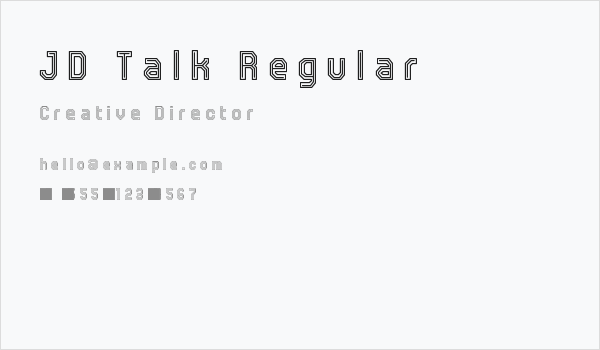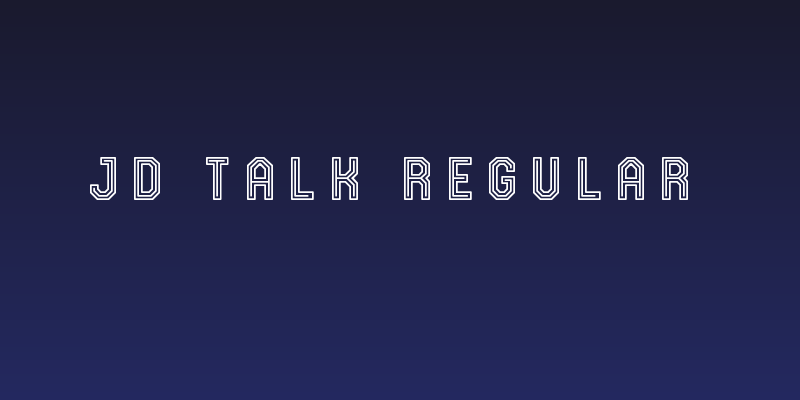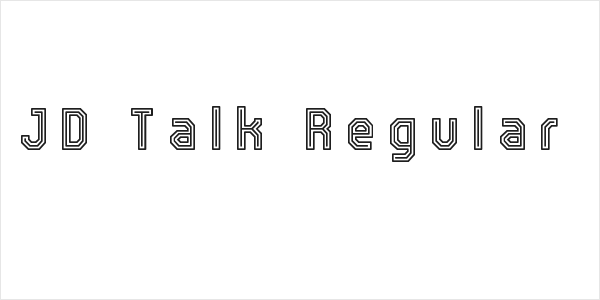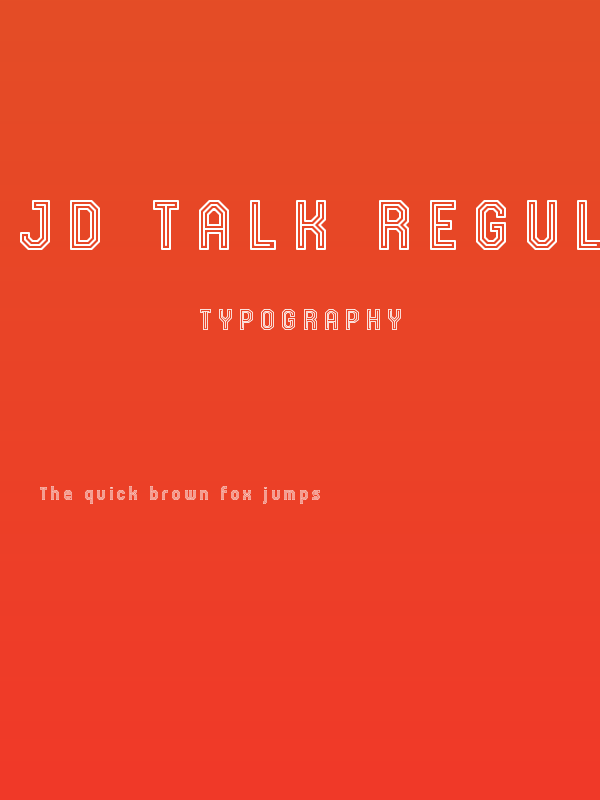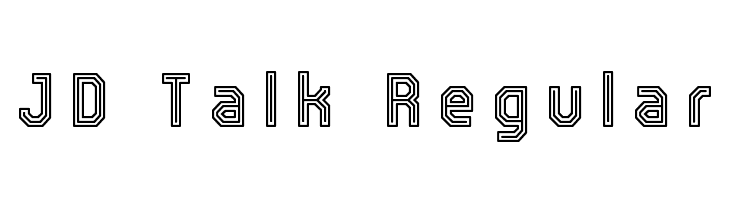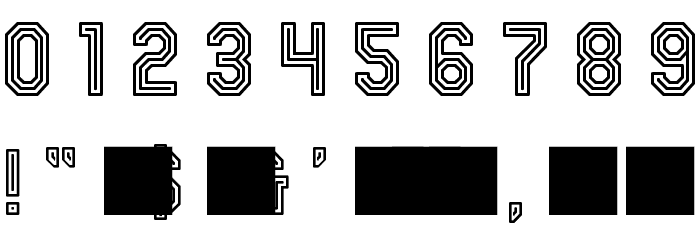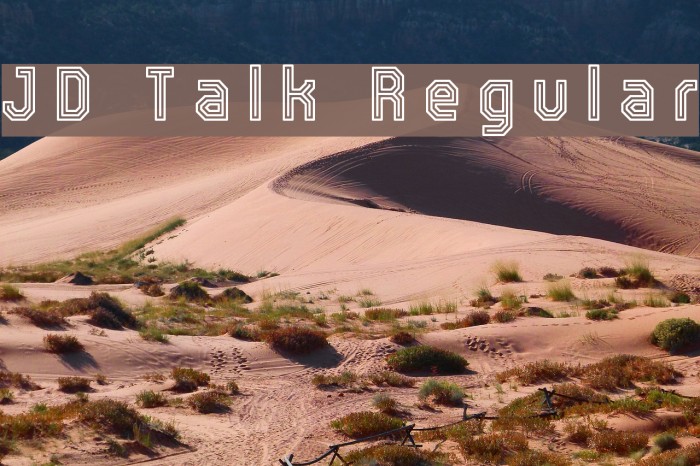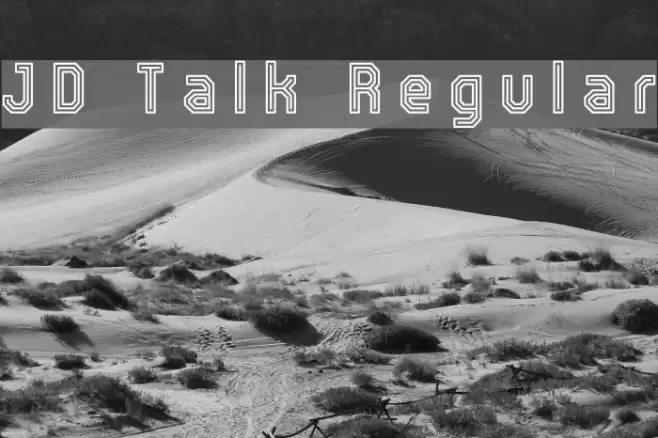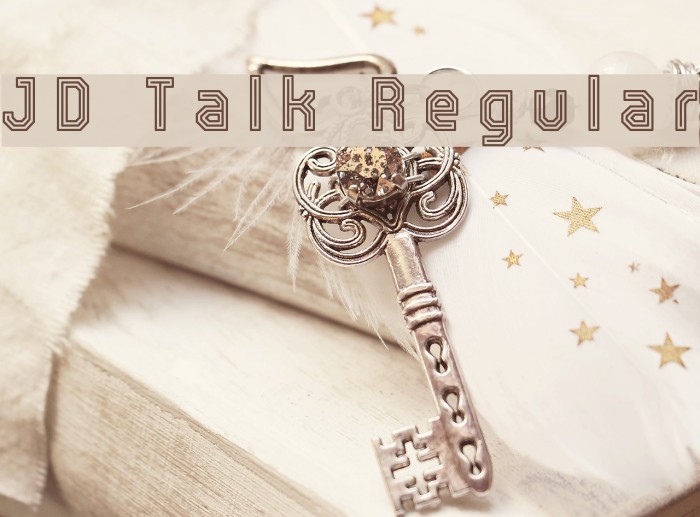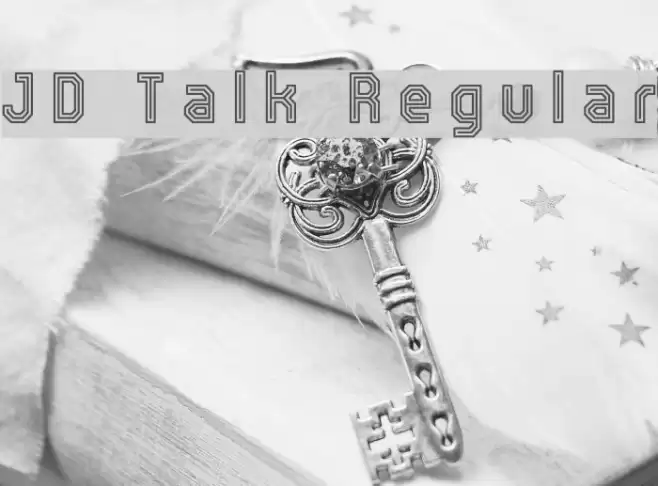
JD Talk Regular Font
JD Talk Regular Description
This font features a unique geometric design with a double-line structure, creating a bold and eye-catching appearance. The uppercase and lowercase letters are consistent in style, maintaining a modern and structured look. The numbers and special characters follow the same pattern, ensuring uniformity across all elements. The font's distinct outline gives it a three-dimensional effect, making it stand out in various applications. Its clean lines and angular shapes contribute to a contemporary aesthetic, suitable for digital and print media.
| Proposed Projects | Ideal for branding, posters, digital media, and modern design projects where a bold statement is needed. |